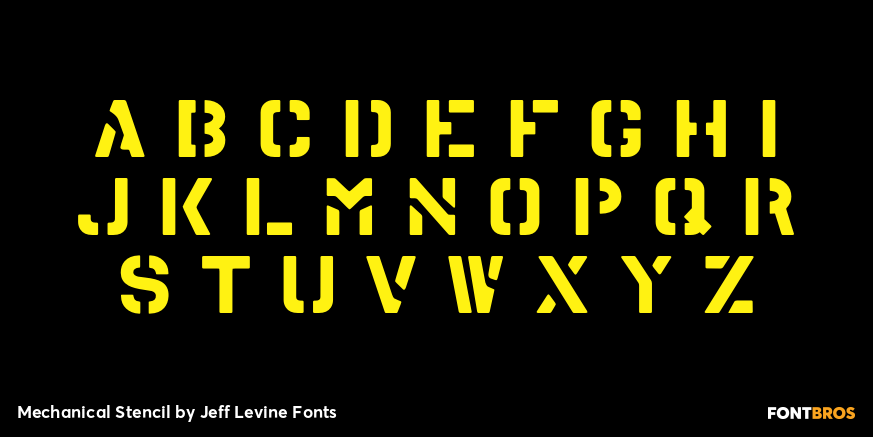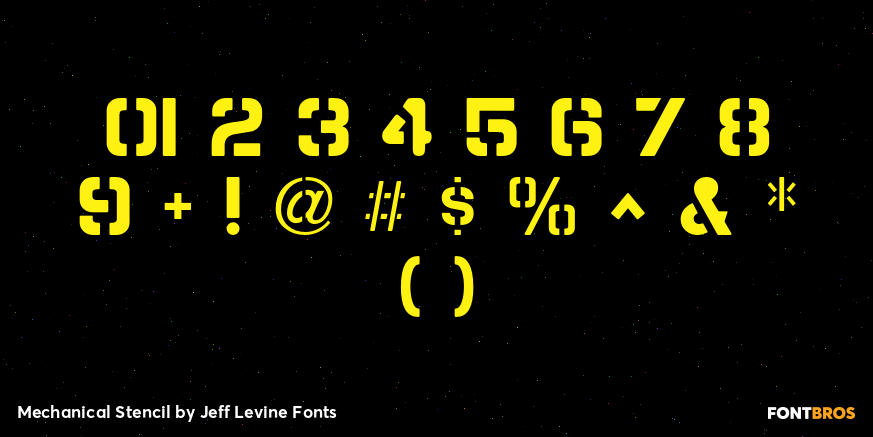
Mechanical Stencil
For well over a century, stencil machines allowed manufacturers, shippers and even the military to quickly mark and identify objects. Mechanical Stencil JNL was created from examples from one of these machines.